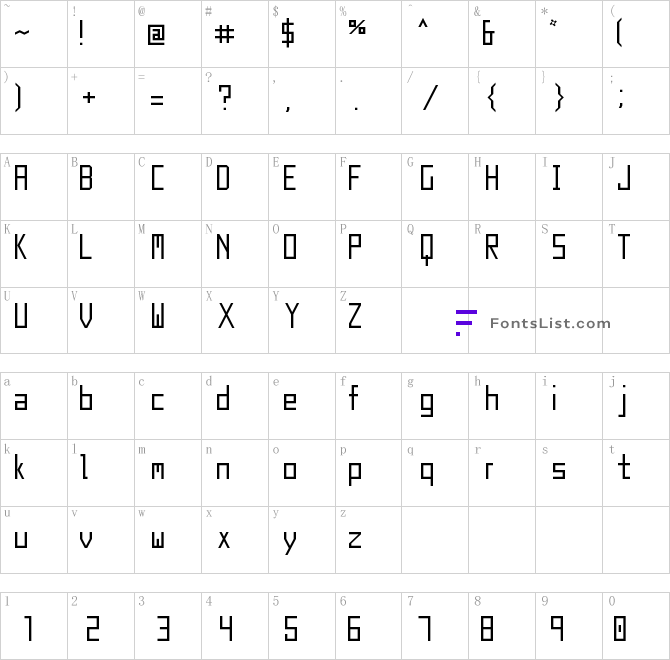
- Font Name:Akron Sans NBP
Akron-Sans-NBP-Regular.ttf is a very beautiful artistic font, Akron-Sans-NBP-Regular.ttf is widely used in the design and printing of various books and pictures,Akron-Sans-NBP-Regular.ttf has a strong visual impact,Akron-Sans-NBP-Regular.ttf is a commonly used font in newspapers, magazines and books, and is used in posters, e-commerce Poster design, store design, logo design, font design and other fields.Akron-Sans-NBP-Regular.